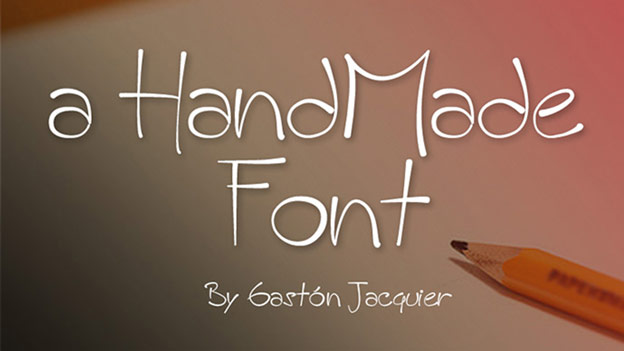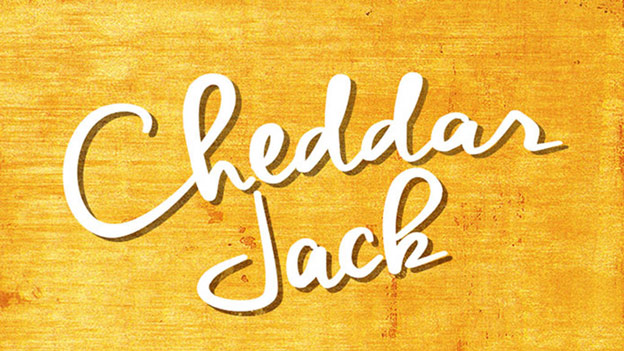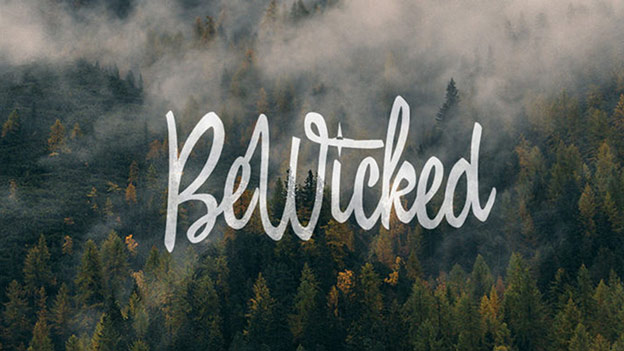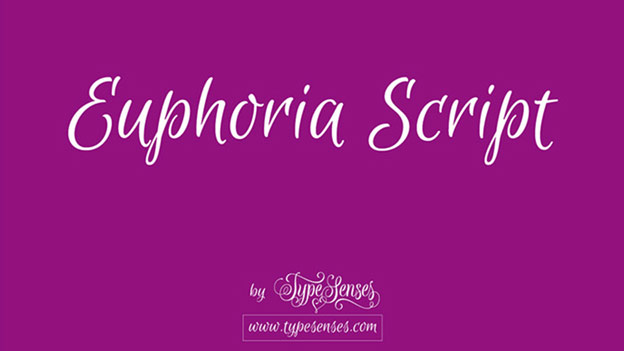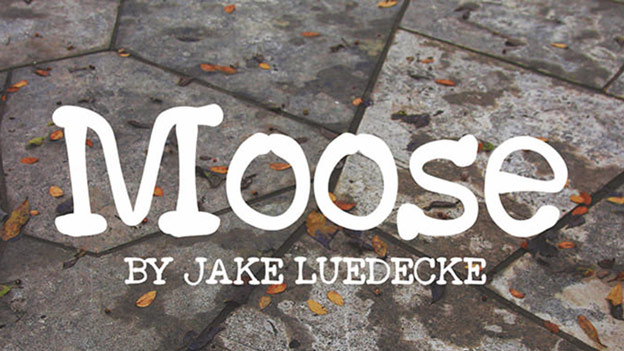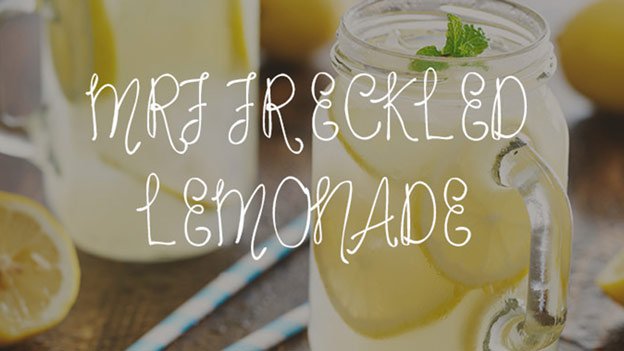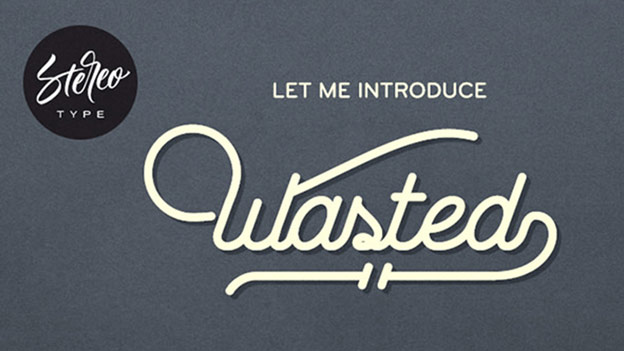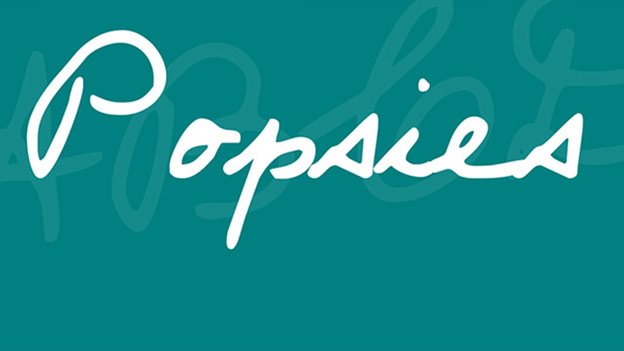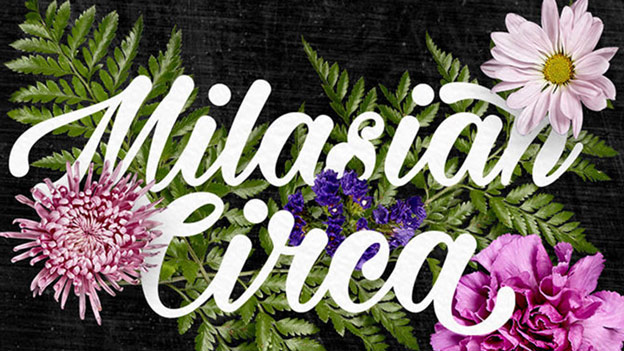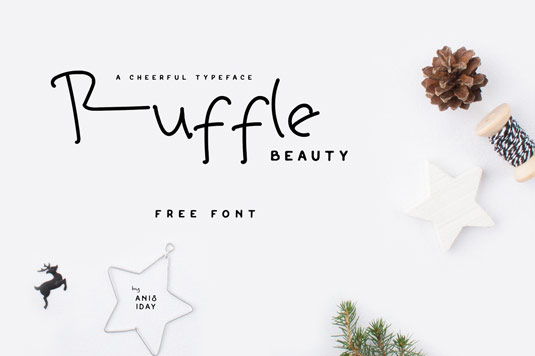
Please Download 20 Beautiful Handwriting Fonts for Design
Here are 20 extremely beautiful handwriting fonts and especially they are completely free for you to refer. If you like, please download and use it quickly.
Handwriting fonts are becoming popular and loved by many designers. Handwritten font is a less restrictive font with style of free typography that is currently used in print as well as in digital. Understanding please download 20 beautiful handwriting fonts for design is easier when the main points are organized clearly. This guide brings together the essential details and practical considerations.
Bakery
She Always Walks Alone
Variane Script Font
Shorelines Script
Reis
Stackyard
A HandMade Font
Cheddar Jack
Kitsune Udon
BeWicked
Euphoria
Moose font
Vtks Love U
MRF Freckled Lemonade
Milasian
Wasted
Scriptina Font Family
Font Popsies
Milasian Circa
Ruffle Beauty